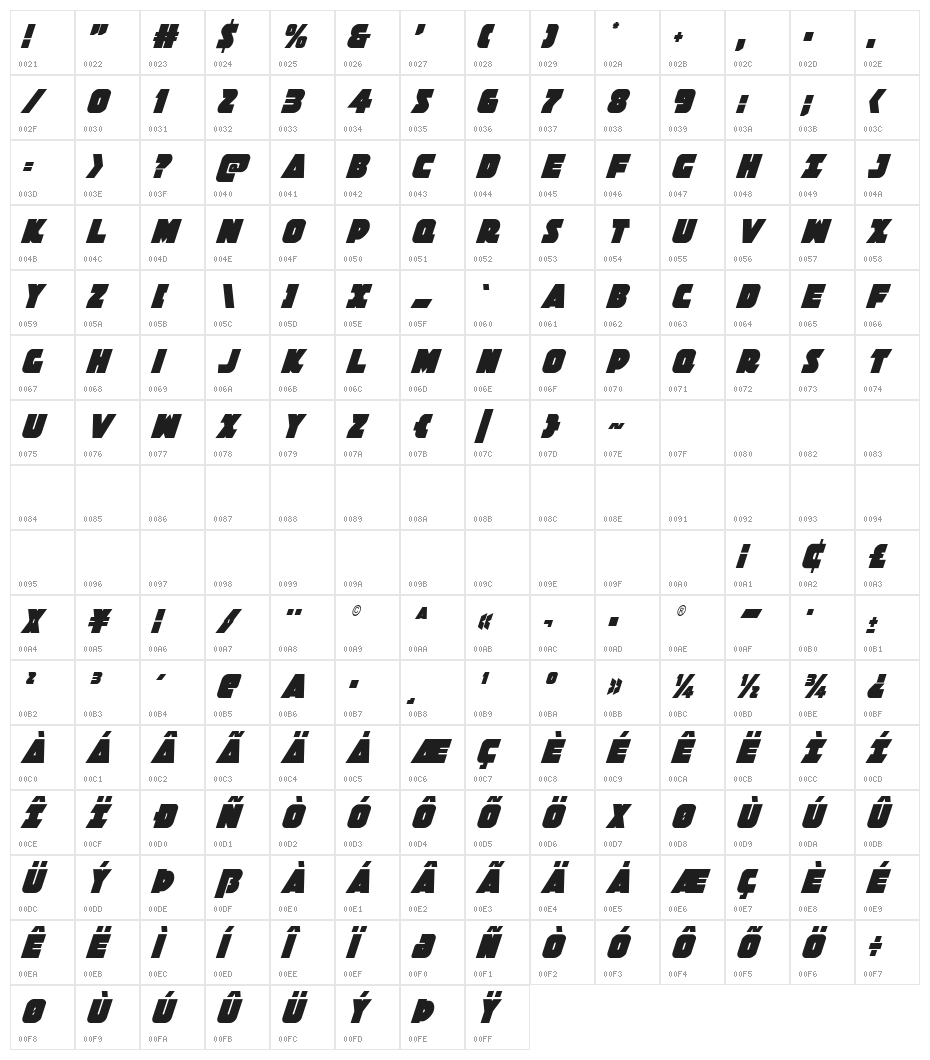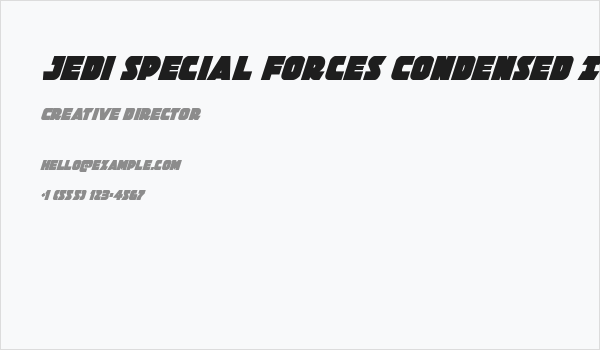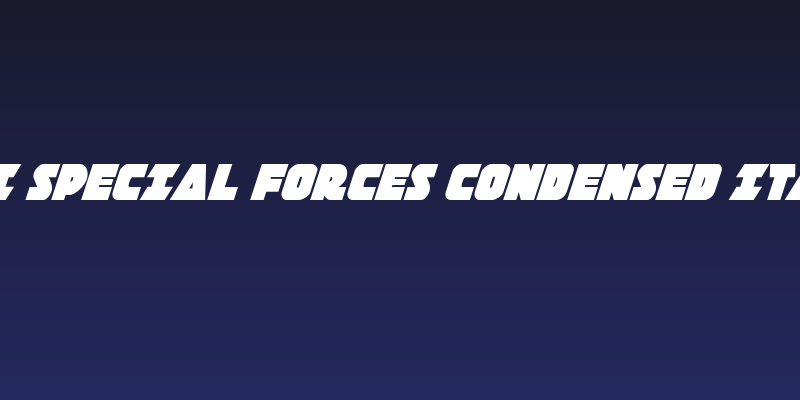
Jedi Special Forces Condensed Italic Font
Jedi Special Forces Condensed Italic Description
This font features a bold, futuristic design with a strong, angular appearance. The characters are condensed and italicized, giving them a dynamic and forward-leaning stance. The strokes are thick and consistent, providing a powerful visual impact. The overall style is reminiscent of science fiction themes, with a modern and edgy feel. The uppercase and lowercase letters maintain a uniform width, enhancing the condensed look. The numerals and special characters are designed to match the boldness and angularity of the letters, ensuring a cohesive appearance across all glyphs.